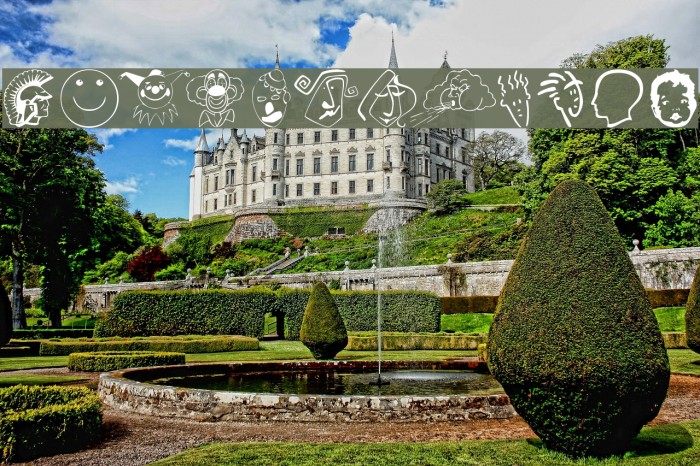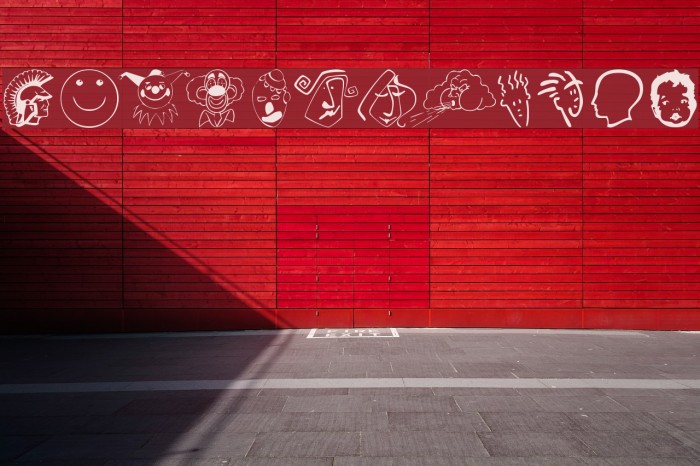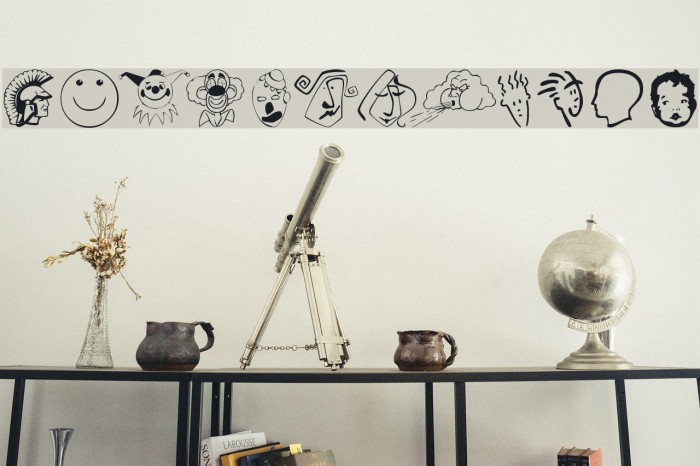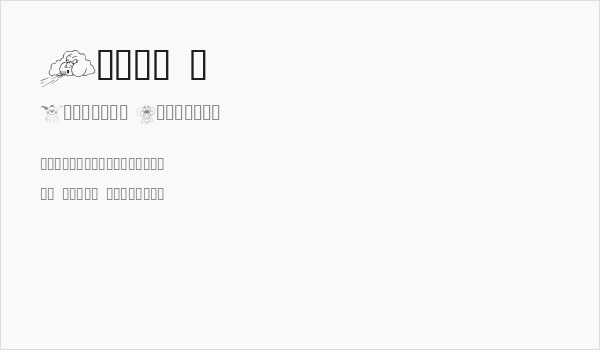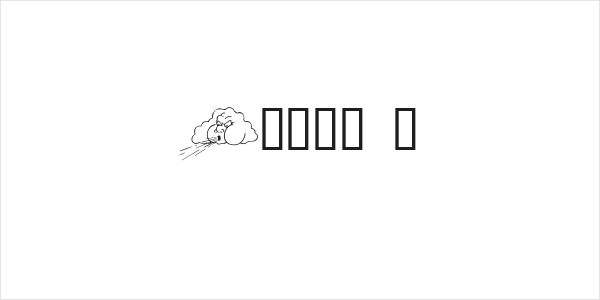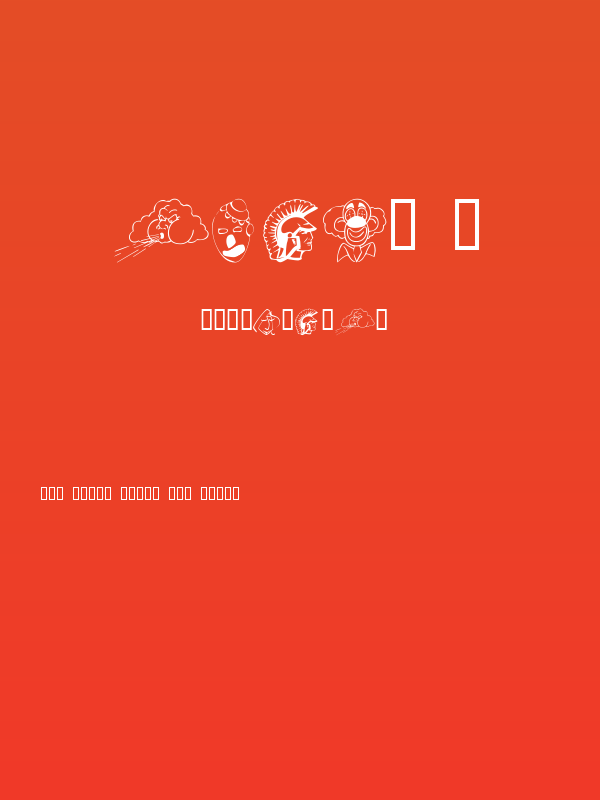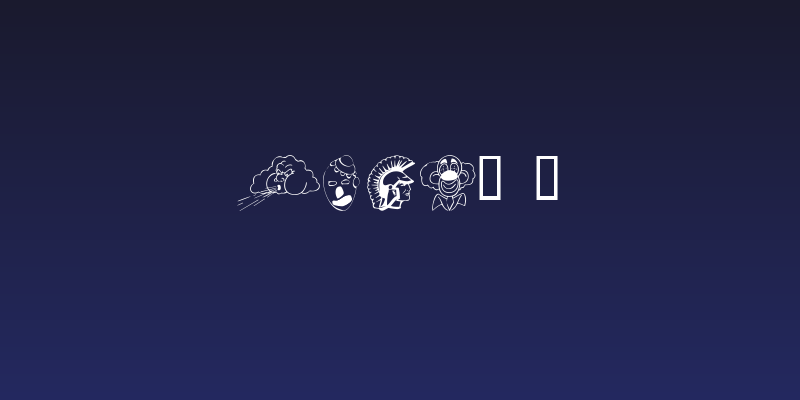
Heads 2 Font
Heads 2 Description
| Overall Style | Whimsical, Playful, Cartoonish |
| Use Case | Decorative elements, Logos, Illustrations, Themed headings |
| Proposed Projects | Children's books, educational materials, comic strips, playful branding, greeting cards, stickers. |